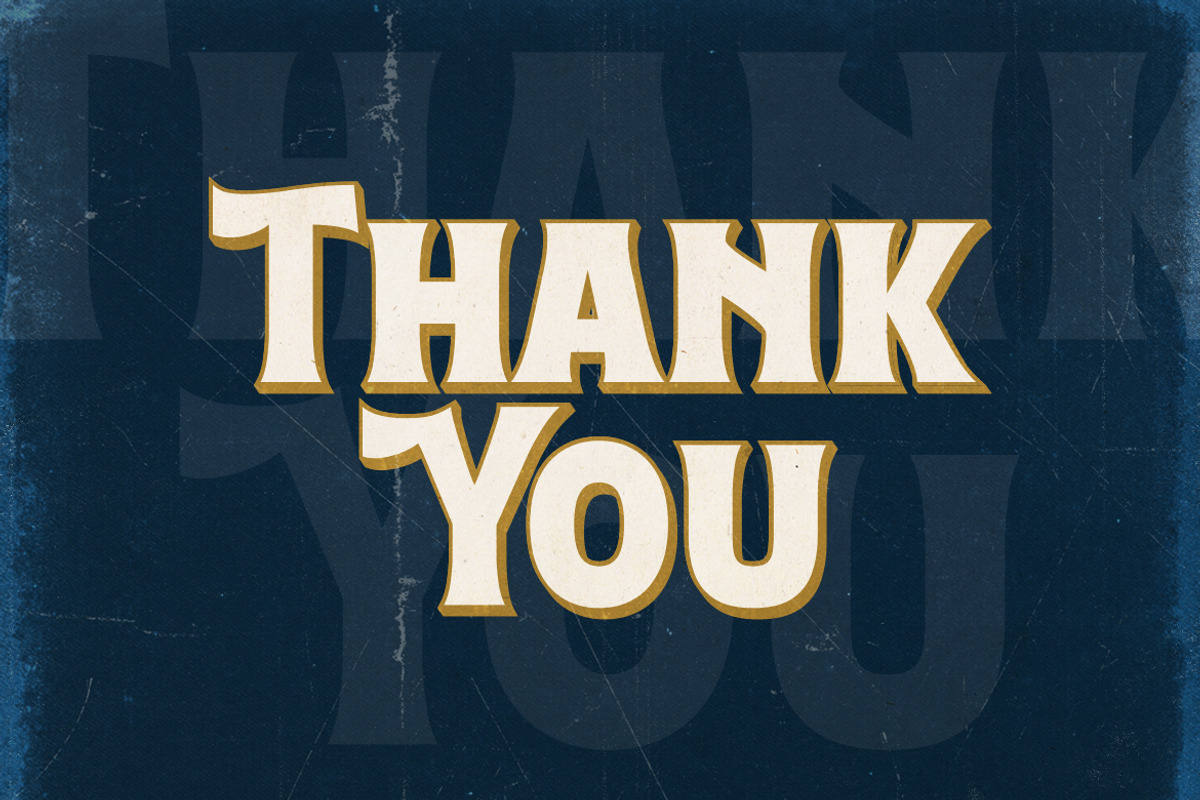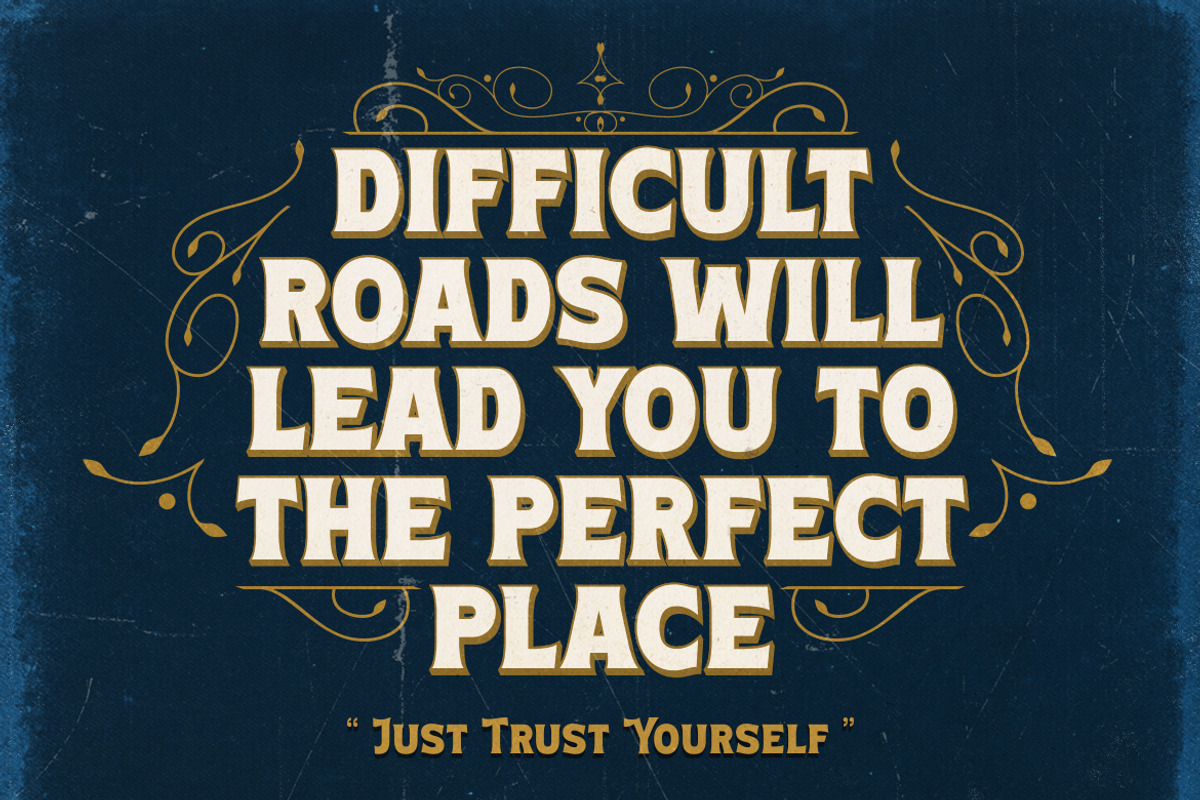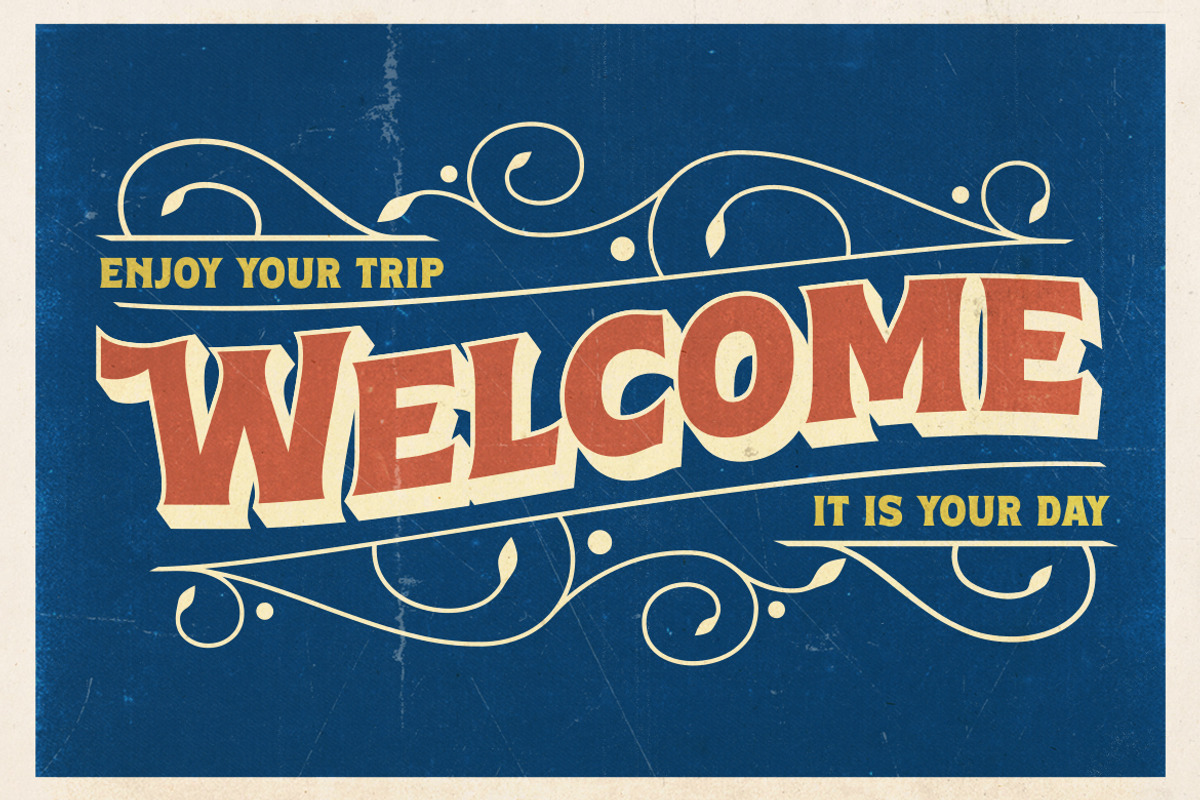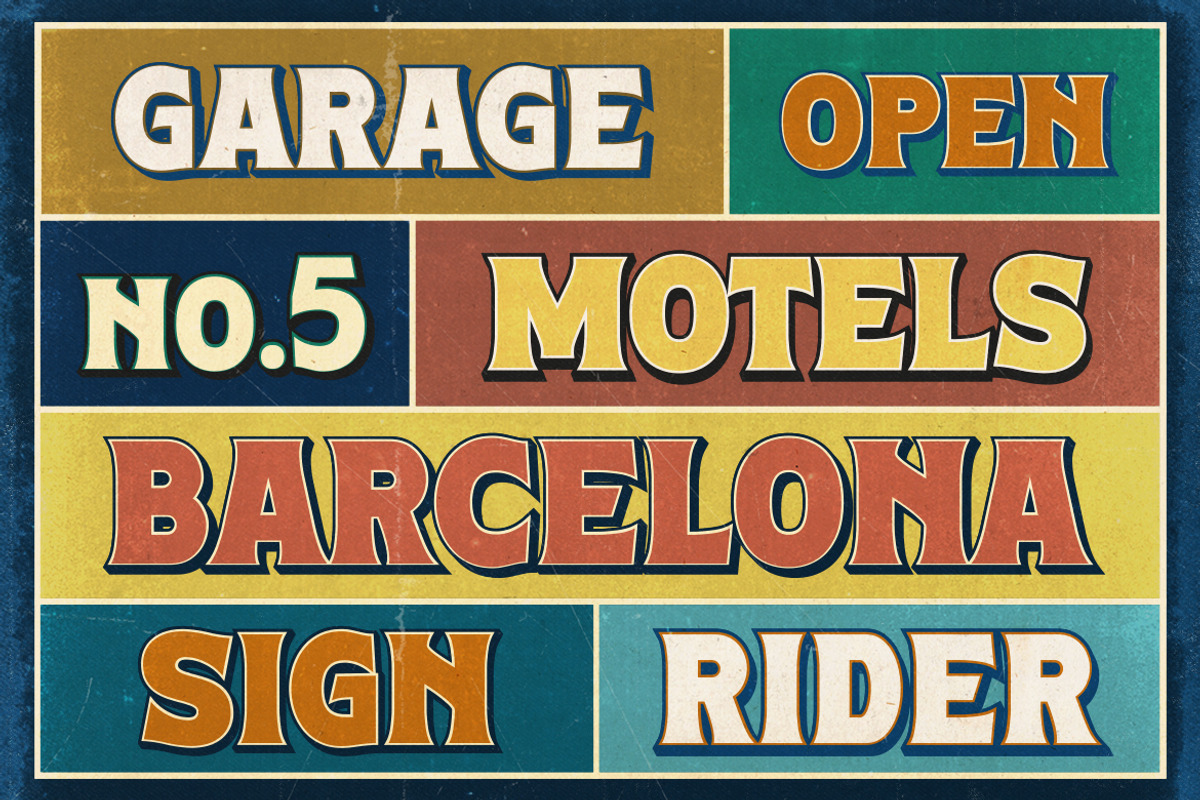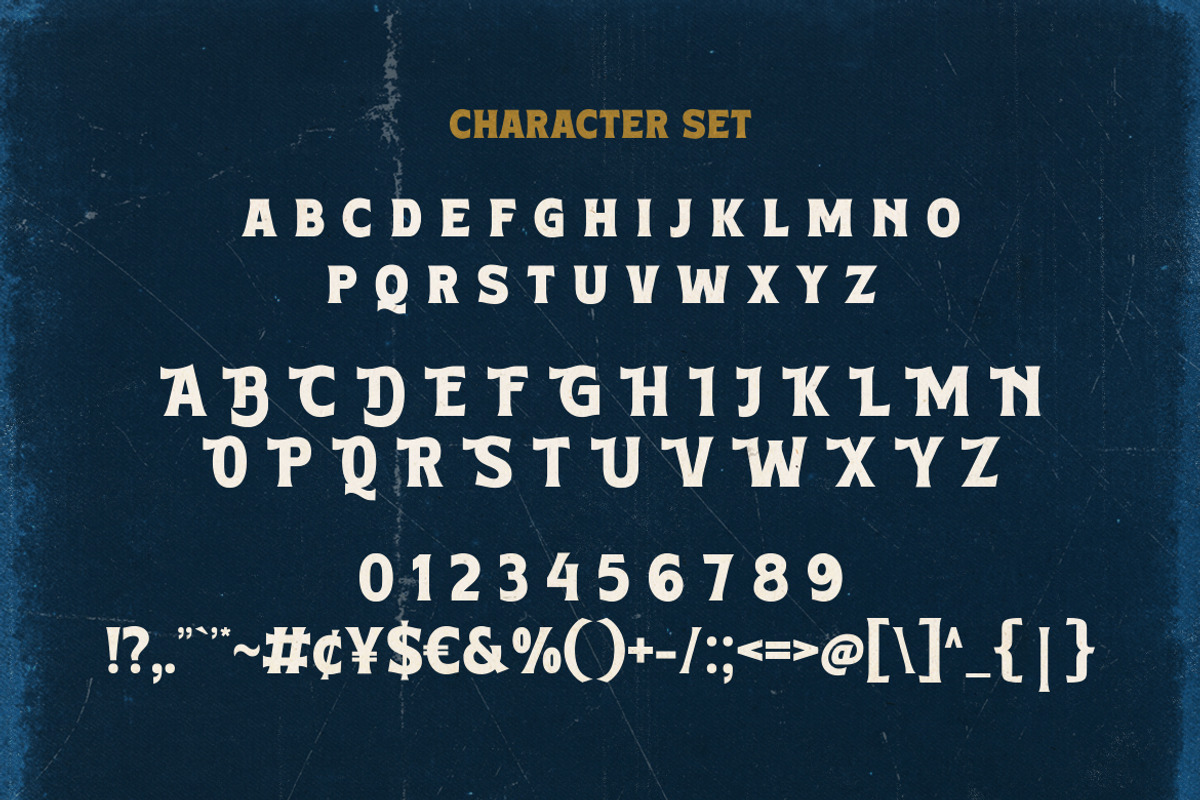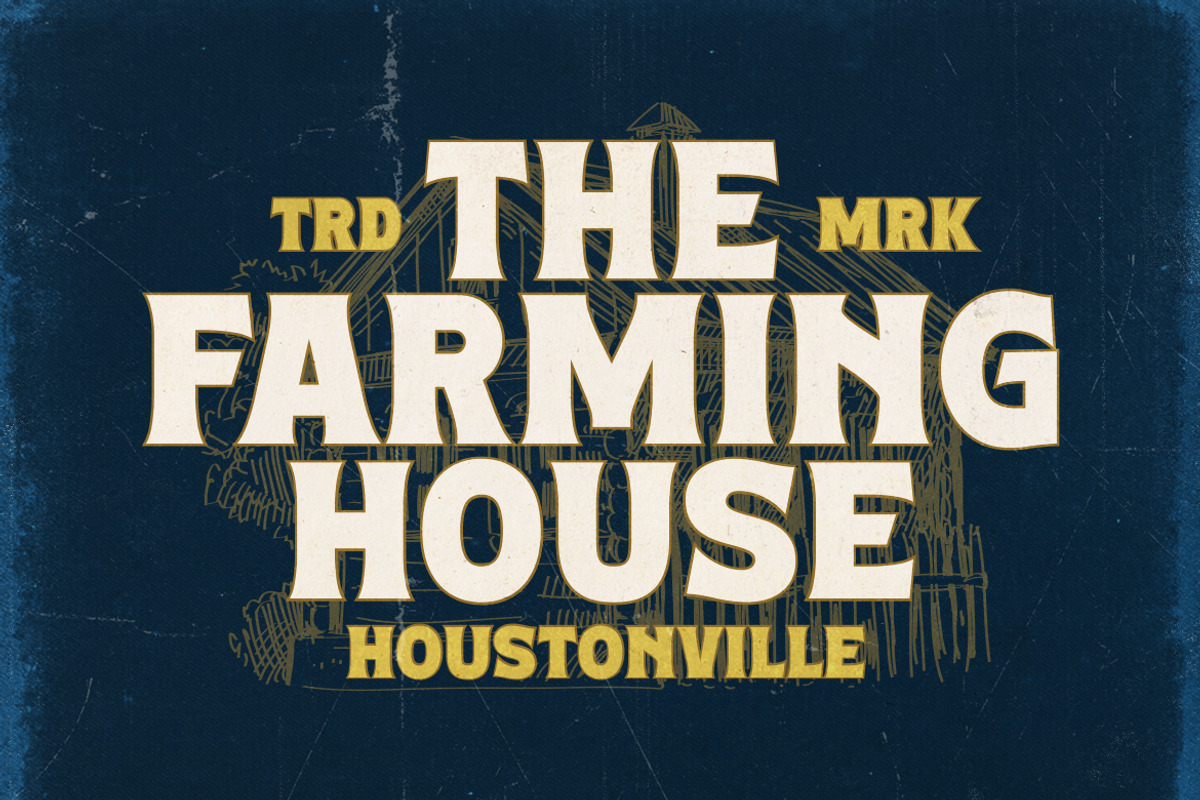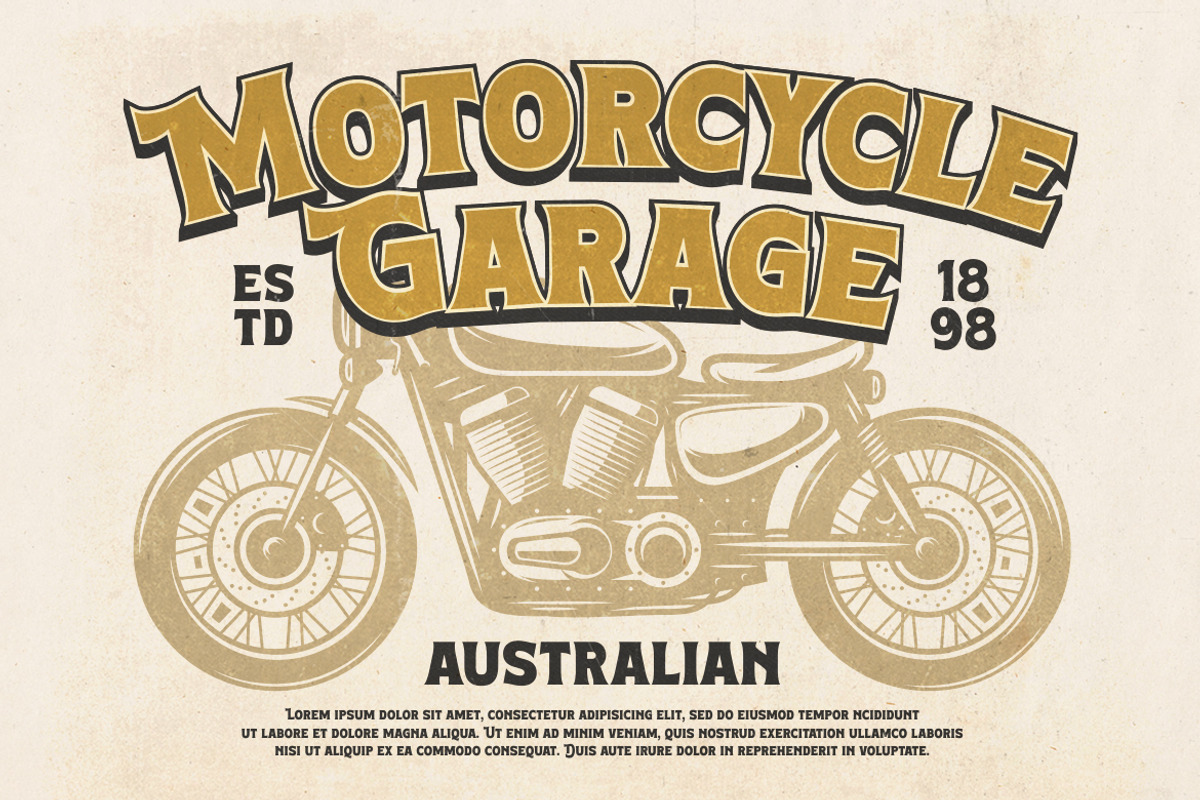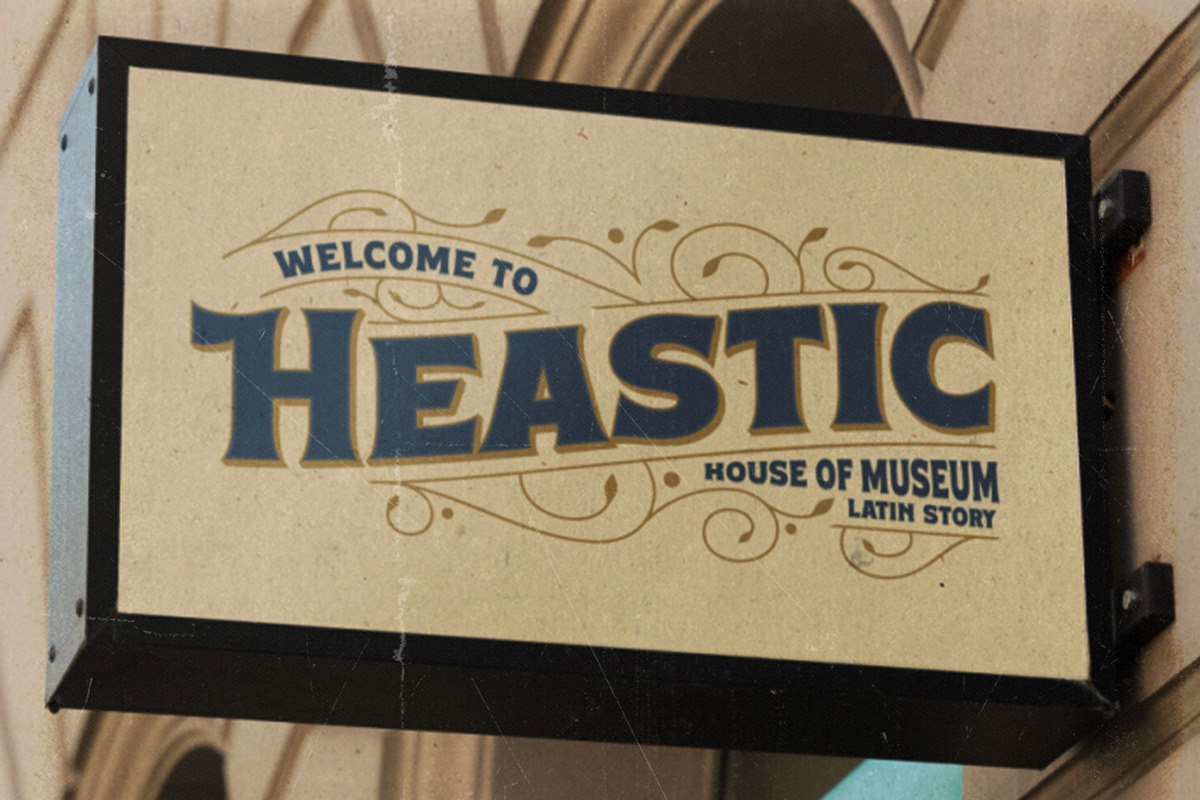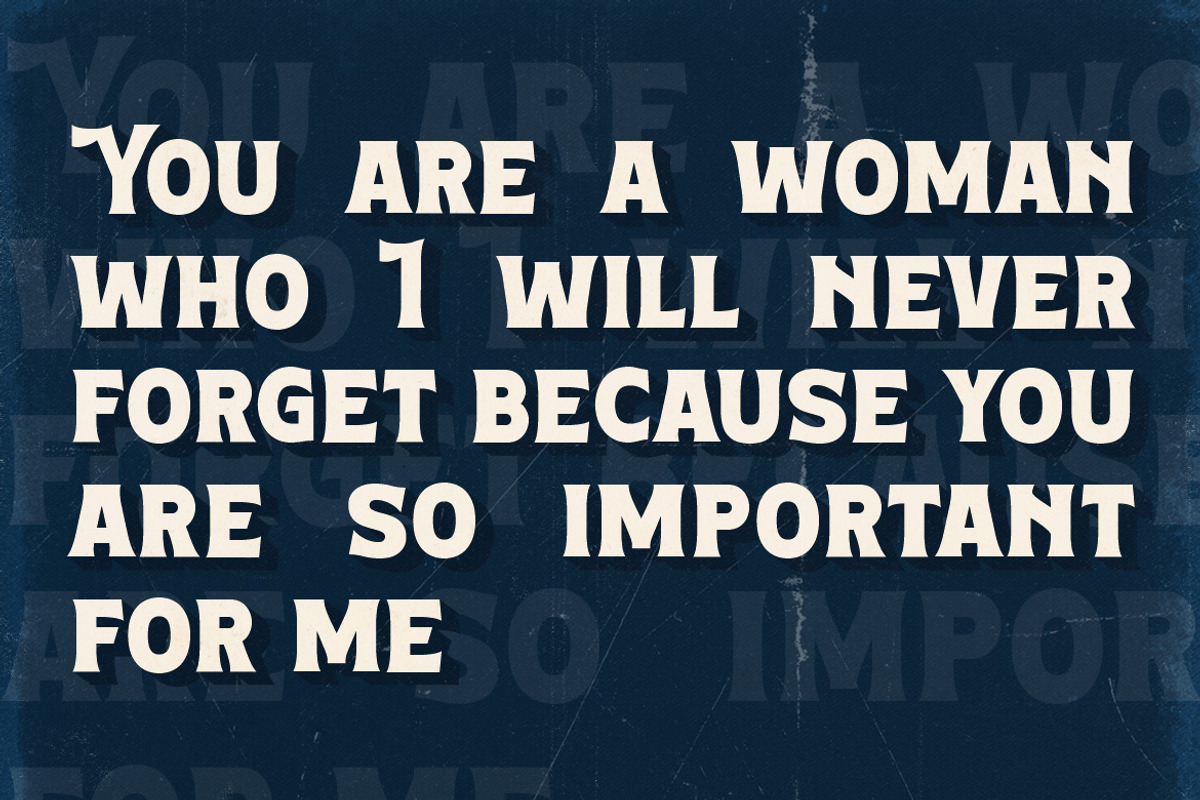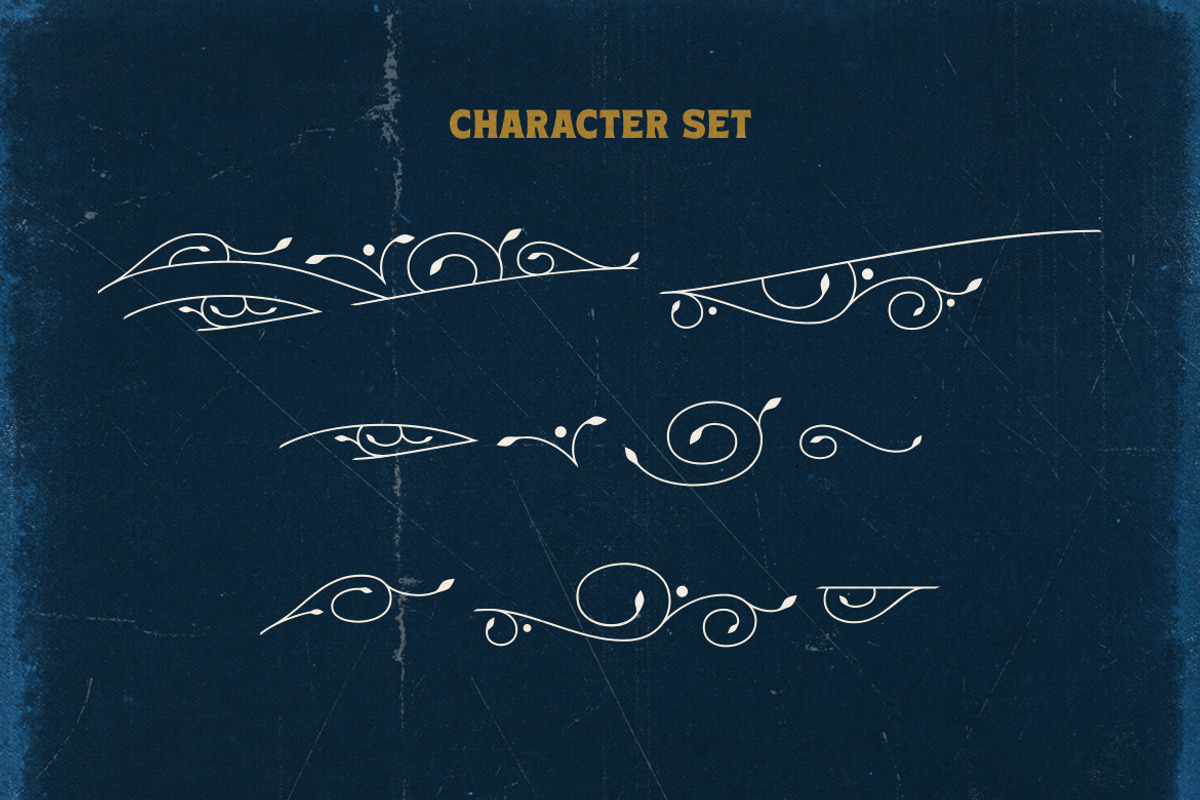
Boldern – Retro Serif Font
Boldern is a Vintage typeface font, it will add an old-time charm to any design project. Don’t miss the opportunity to infuse your designs with the elegance and nostalgia of vintage typography. Our vintage font is the perfect companion for your creative journey. With its multiple formats, alternative characters, and ornamental elements, it’s never been easier to bring the timeless charm of the past into your modern projects. This collection of font is perfect for everything your project with vintage, retro, wild or organic style. It was made with the intention of being used for product Logo like a Pomade, Coffee, Barber shop or packaging label. It’s great also for Branding, Logo designs, Lettering, Logotype, Craft, Posters and much more.
- Alternate Character Ornament